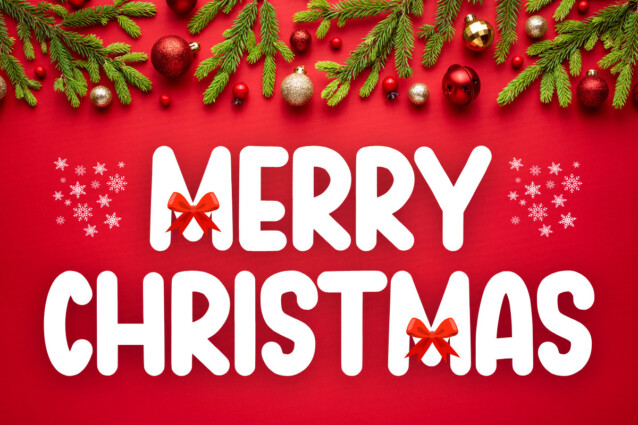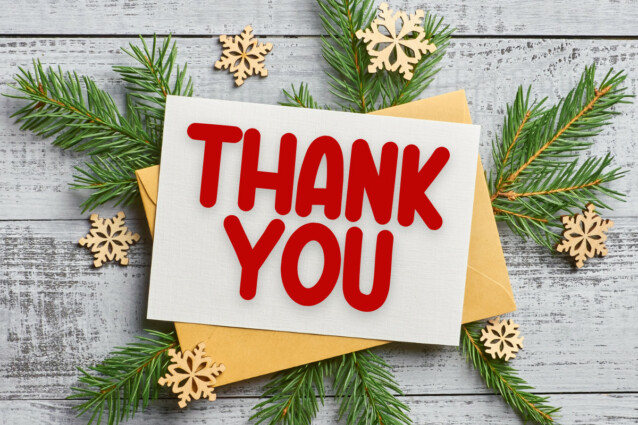
Nataly Font
Nataly Font is a festive and cute typeface that exudes holiday cheer. With cute and fun letters, it’s perfect for adding a touch of cheer to your Christmas designs. Bring the spirit of the season to life in your holiday cards, banners, and other festive creations with this unique font.